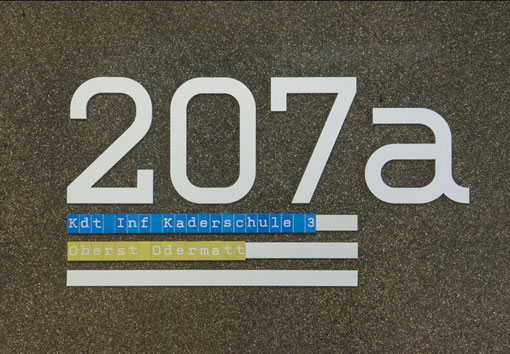
(x) Monolinear (monospaced?) slab - probably custom by Hi, similar to Kettler {Rasmus, Chris K}
Does anyone know what font these characters are from??
It was made by the Swiss studio 'Hi', try asking them http://www.hi-web.ch/#
Looks like a customized version of Kettler, the 2 is different.